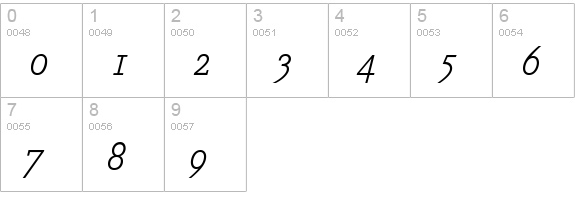
Corporate E BQ Expert Light Italic OsF Font Details
Corporate E BQ Expert Light Italic OsF is a refined, elegant, italic variant in the Corporate typeface family \xE2\x80\x94 well suited to elegant body text, refined sub-headings, and luxury branding.
The Corporate E BQ Expert Light Italic OsF font is a sleek and modern typeface designed for professional use. Its elegant and stylish design makes it perfect for corporate branding, presentations, and digital projects. This font exudes sophistication and professionalism, making it a popular choice for businesses looking to enhance their visual identity. What sets this font apart is its free availability. You can easily download the Corporate E BQ Expert Light Italic OsF font for free at FontsMarket.com. Whether you're a designer, marketer, or business owner, this font is a valuable addition to your collection. Don't miss out on the opportunity to elevate your projects with this versatile and elegant typeface.